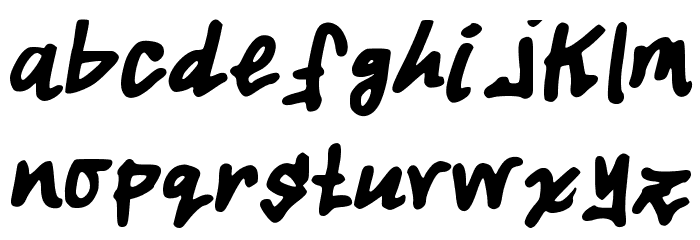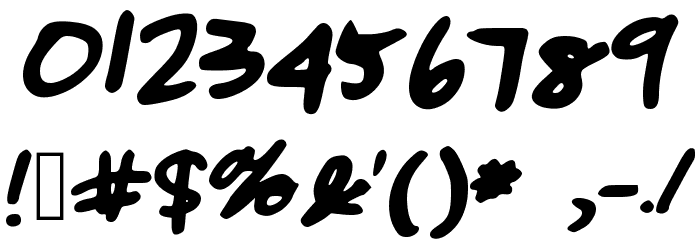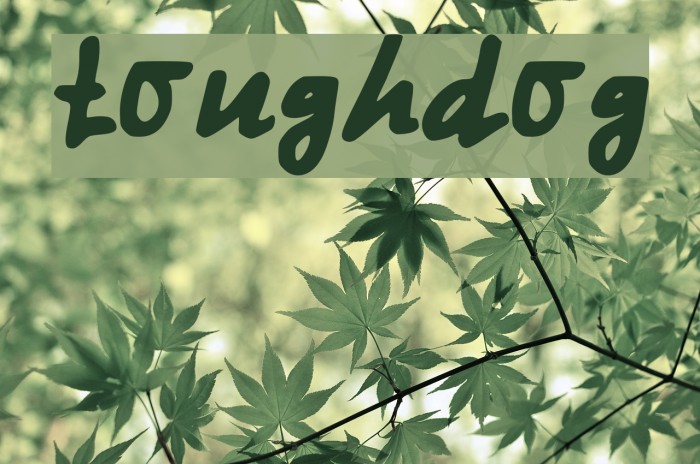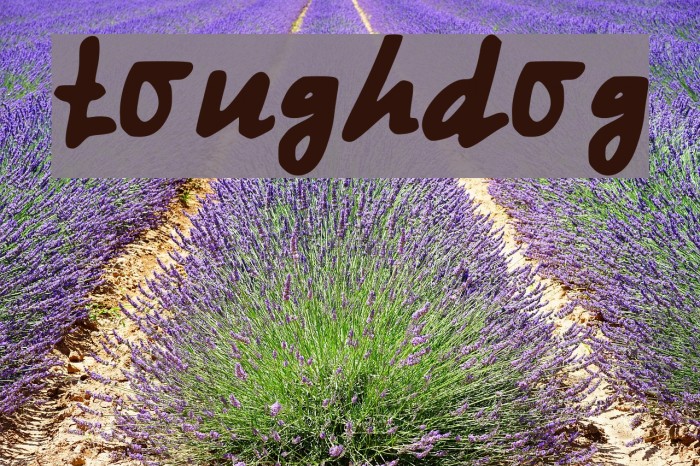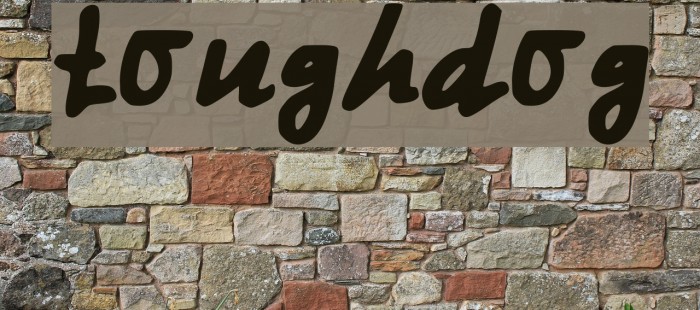
tough_dog Font
This font features a bold and dynamic handwritten style, characterized by its thick strokes and playful, energetic appearance. The letters are slightly slanted, giving a sense of motion and spontaneity. Each character is distinct, with unique curves and angles that add to the overall casual and informal feel. The font maintains a consistent weight throughout, ensuring readability while conveying a sense of creativity and individuality. Its boldness makes it stand out, making it suitable for eye-catching designs.
A bold, dynamic handwritten font with thick strokes and a playful style.
- Proposed Projects: Ideal for projects that require a personal touch, such as greeting cards, posters, branding for creative businesses, or social media graphics.
- Category: Handwritten
- Overall Style: Casual, Playful